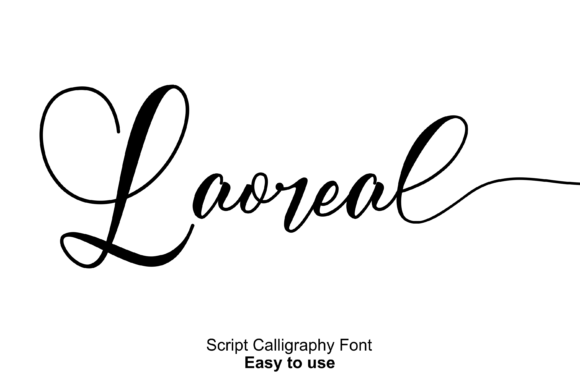
Behold, the Laoreal Font - where elegance and charm intertwine! Crafted with meticulous care by Infontree, this script font is an absolute treasure for those seeking a touch of refined beauty in their creative endeavors.
Laoreal's delicate strokes and graceful curves evoke a sense of timeless sophistication, while its natural flow lends an air of effortless elegance to your designs. Step into a world of visual enchantment as you explore the endless possibilities that await with this captivating font.
Whether you're a seasoned designer or just starting your creative journey, Laoreal will elevate your projects to new heights. Its versatility knows no bounds, making it the perfect choice for a wide range of applications.
From eye-catching logos and branding to enchanting invitations and heartfelt letters, Laoreal seamlessly adapts to your every need. Unleash your imagination and let the beauty of Laoreal transform your words into works of art.
Immerse yourself in the world of Laoreal and discover a font that's more than just a collection of letters and symbols. It's an expression of your unique style, a reflection of your creativity, and a testament to your impeccable taste.
Join the growing community of designers and artists who have embraced the allure of Laoreal. Let your imagination soar and create designs that resonate with your audience, leaving an indelible mark on their hearts and minds.
With Laoreal by your side, you'll embark on a creative journey unlike any other. Prepare to be inspired, captivated, and amazed as you witness the transformative power of this extraordinary font.